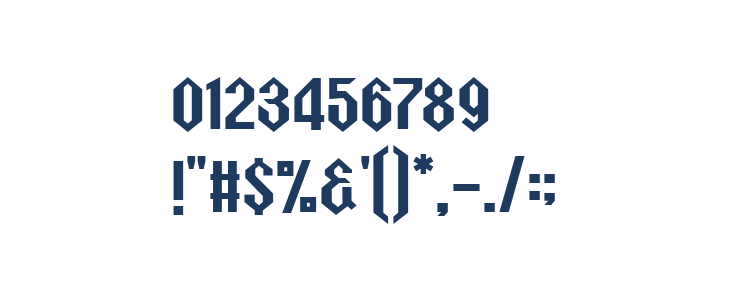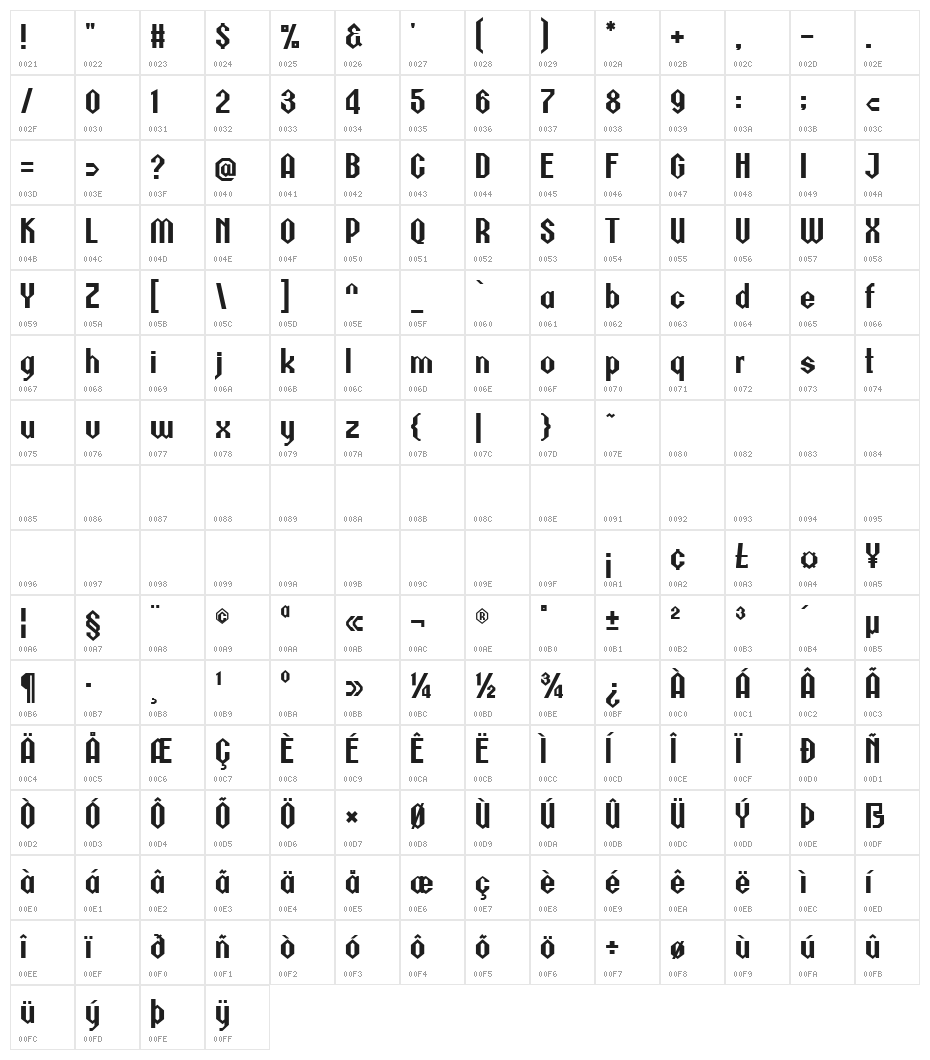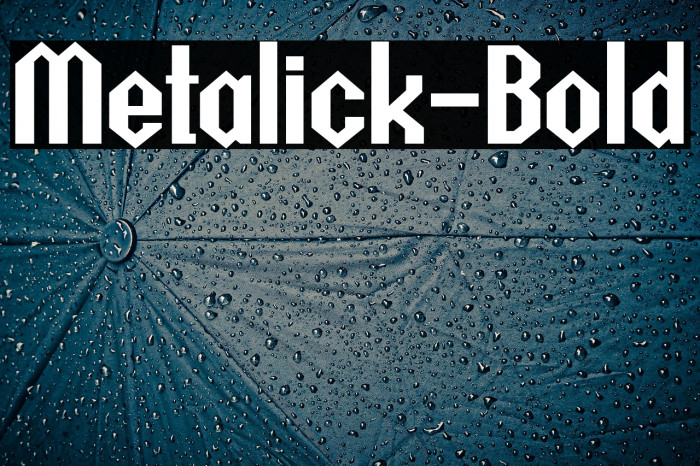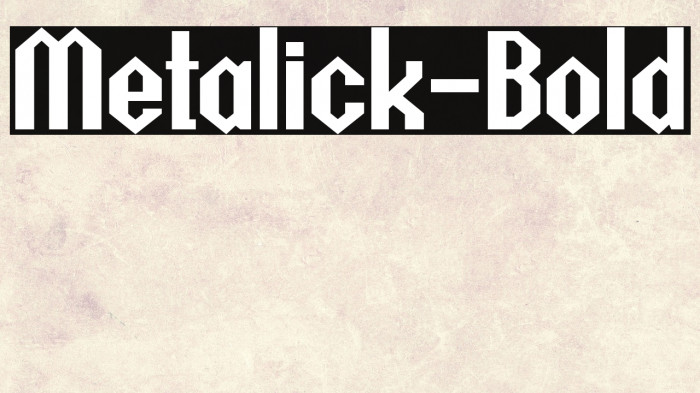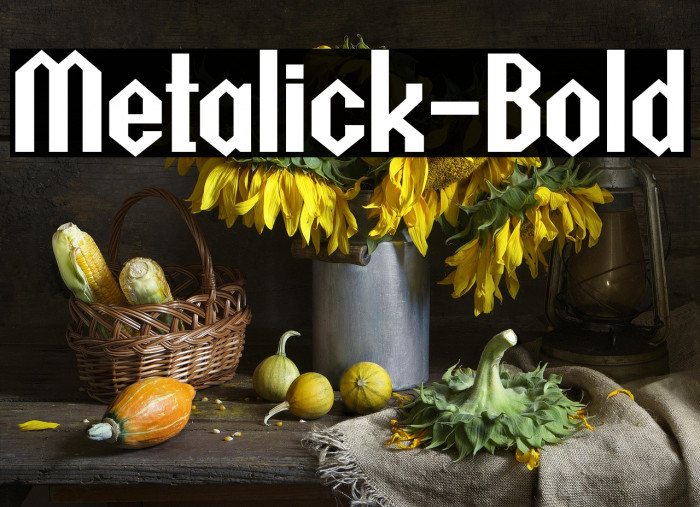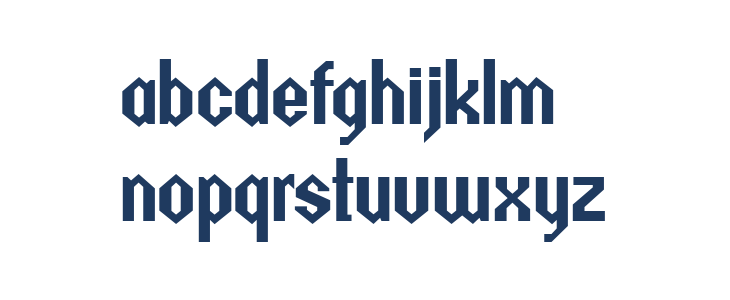
Metalick-Bold Font
Metalick-Bold Description
This font features a bold, angular design with a distinctly modern and edgy feel. The characters are sharply defined with a geometric structure, giving them a strong and impactful presence. The uppercase and lowercase letters maintain a consistent style, with the uppercase being particularly striking due to their height and width. Numbers and special characters follow the same angular and bold aesthetic, ensuring uniformity across all elements. The font's design is reminiscent of industrial or futuristic themes, making it suitable for projects that require a strong visual impact.
| Proposed Projects | Ideal for branding, album covers, posters, and any design that requires a strong, modern impact. |